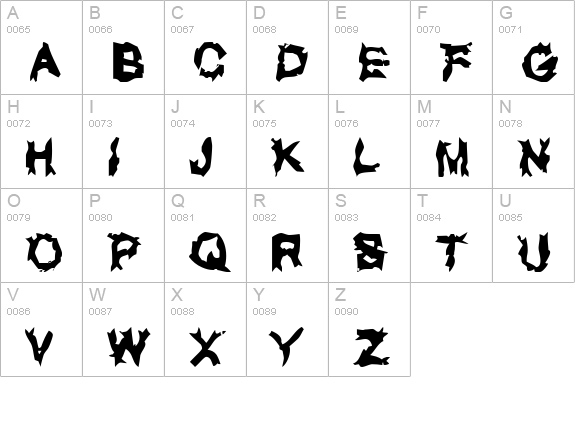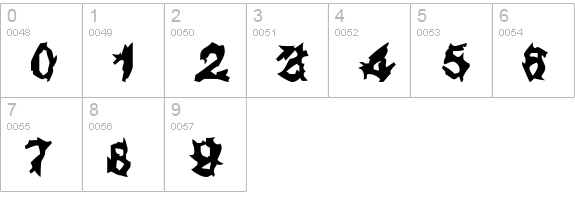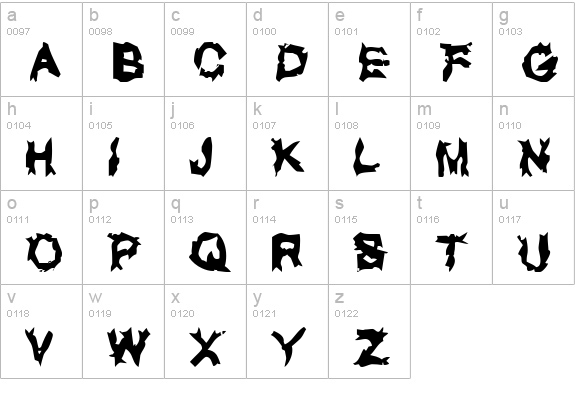
UGLY LOVER Font Details
Introducing the captivating UGLY LOVER font - a delightfully unconventional typeface that brings a unique twist to your designs. With its bold and expressive letterforms, UGLY LOVER exudes a raw and edgy character that is sure to make a statement. This font is a free-spirited rebel that breaks away from the norm, embracing imperfections and celebrating individuality. Its irregular and uneven strokes add a touch of quirkiness and unpredictability, making every word stand out in a sea of conformity. UGLY LOVER is not your average font - it is a bold declaration of creativity and self-expression. Whether you're designing a poster, logo, or social media graphics, this font will instantly infuse your project with a distinctive and captivating personality. What's even more exciting is that UGLY LOVER is available for free download exclusively at FontsMarket.com. Yes, you read that right - this remarkable font can be yours without spending a dime. So go ahead and unleash your imagination with UGLY LOVER, and watch as your designs come to life with a refreshing and rebellious touch. Embrace the unconventional, break free from the mundane, and let UGLY LOVER be your creative companion. Download it now from FontsMarket.com and take your designs to a whole new level of style and originality.